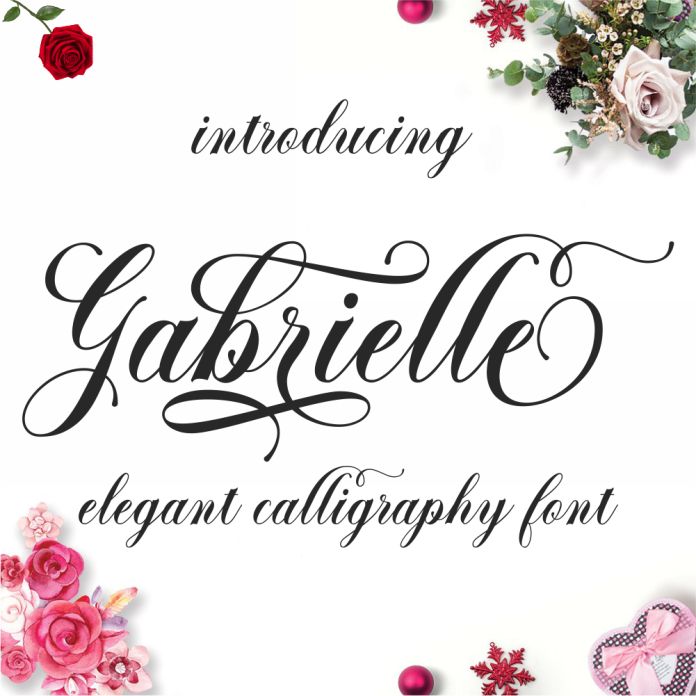
Gabrielle Script Font is an elegant and sophisticated typeface with flowing, hand-drawn strokes. Its intricate details and cursive style make it perfect for invitations, branding, and other projects that require a touch of femininity and charm.